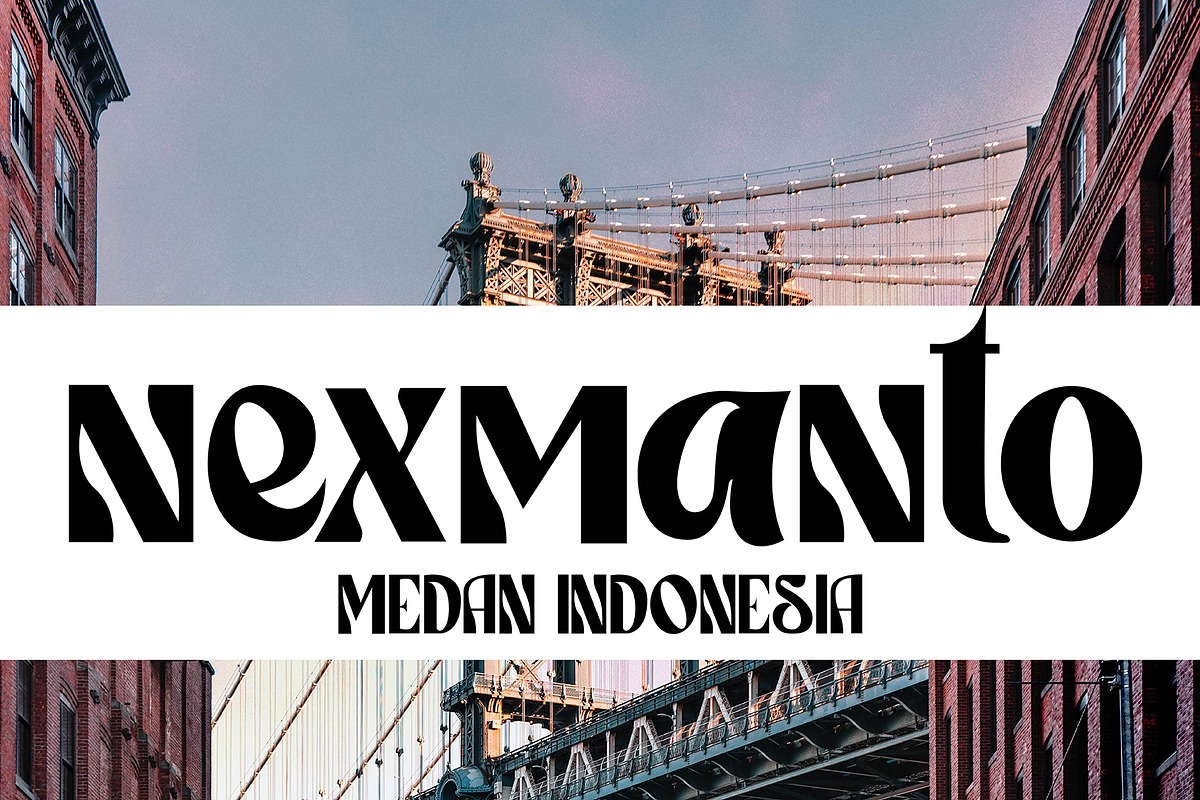
Narnia is a psychedelic inspired typeface. It’s retro, bold, and playful. Perfect if you need a dose of fun in your project. It is very suitable when used for logo designs, badges, web layouts, headers, packaging and many others.